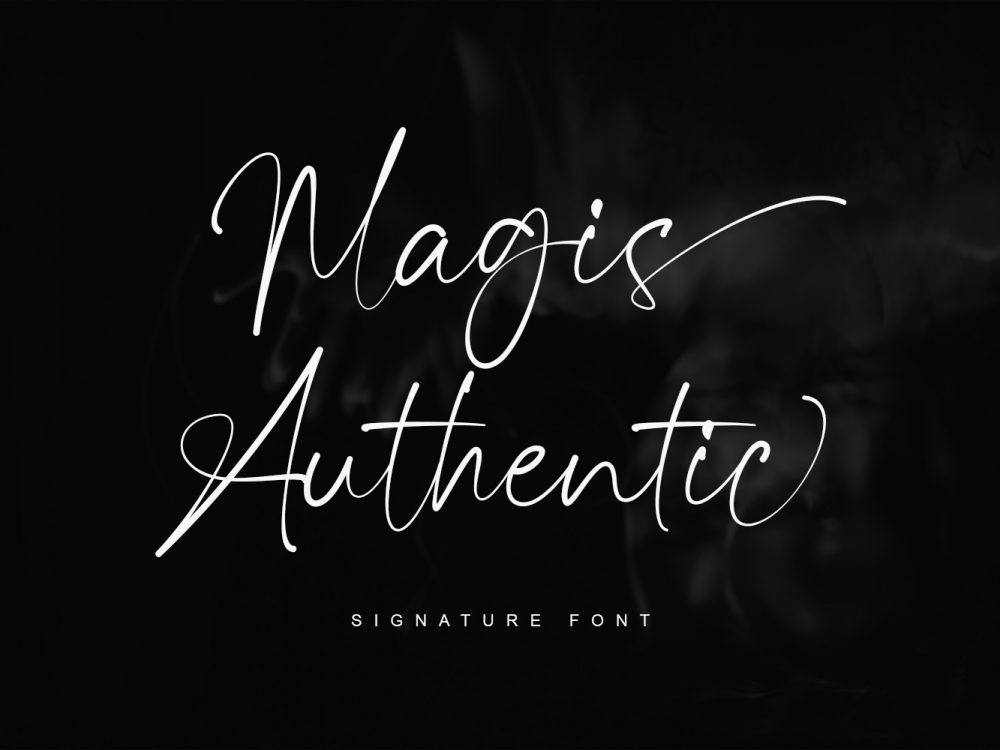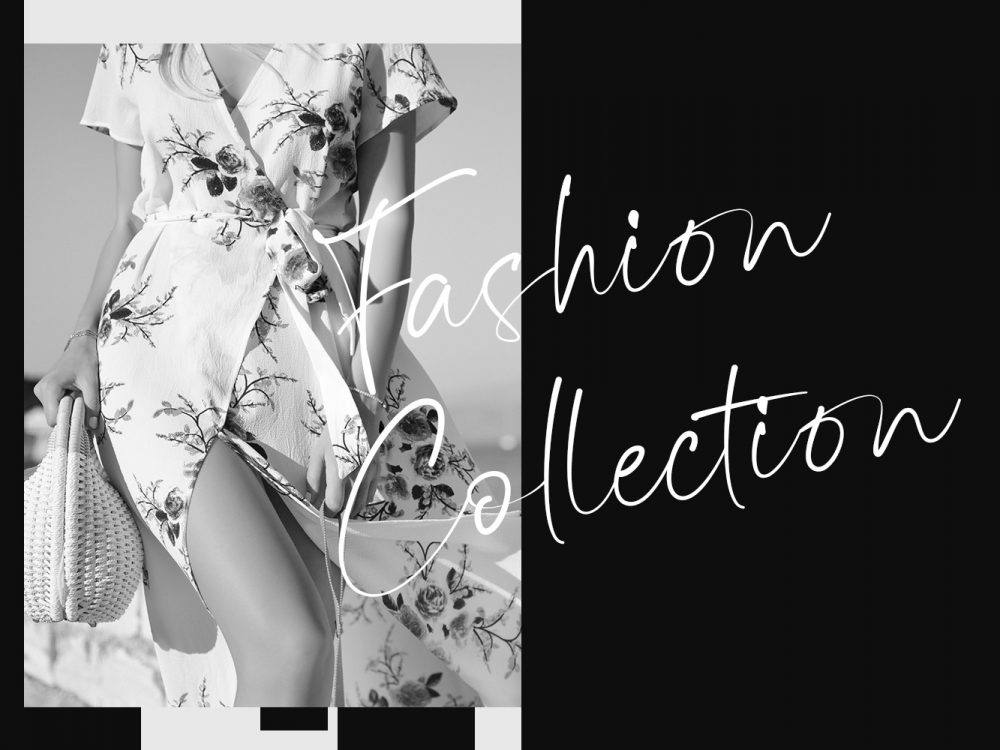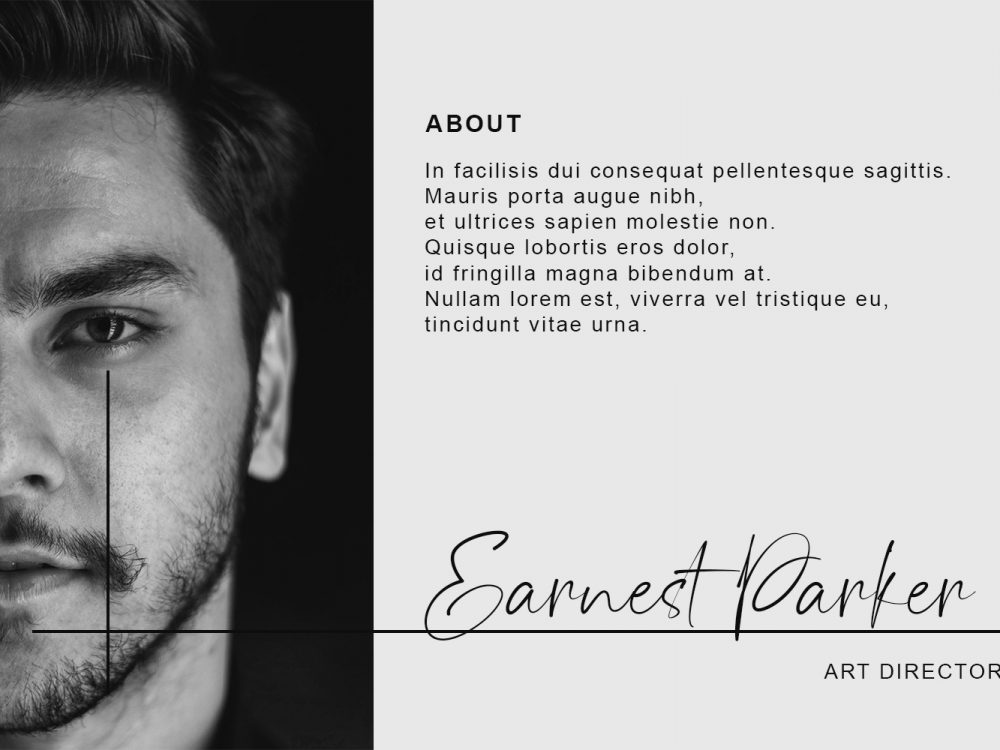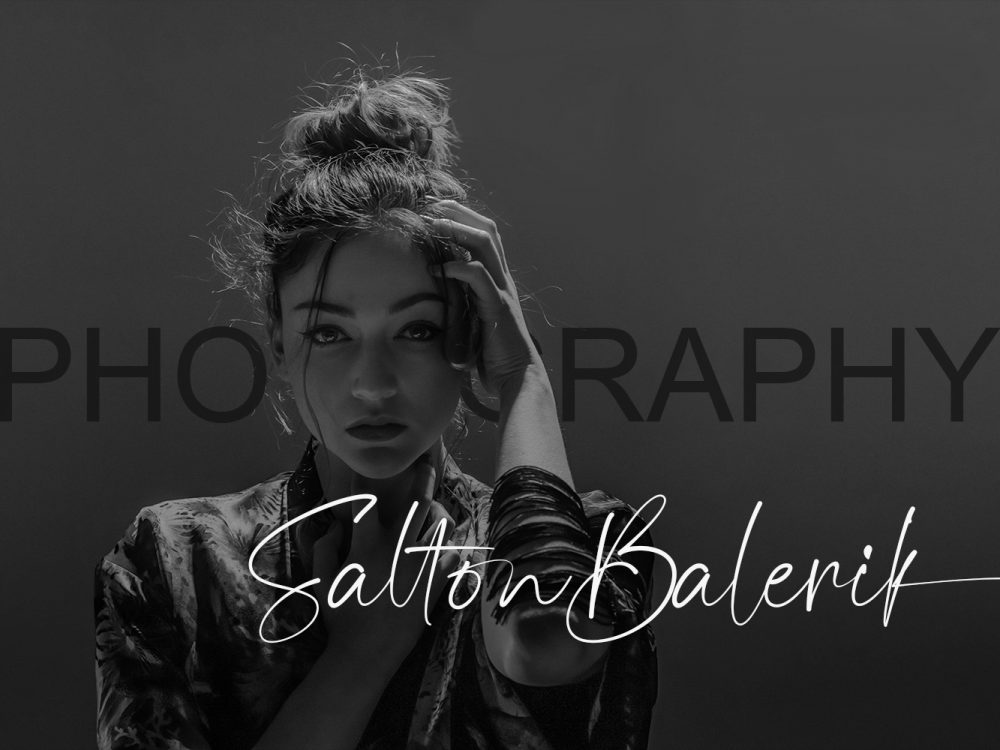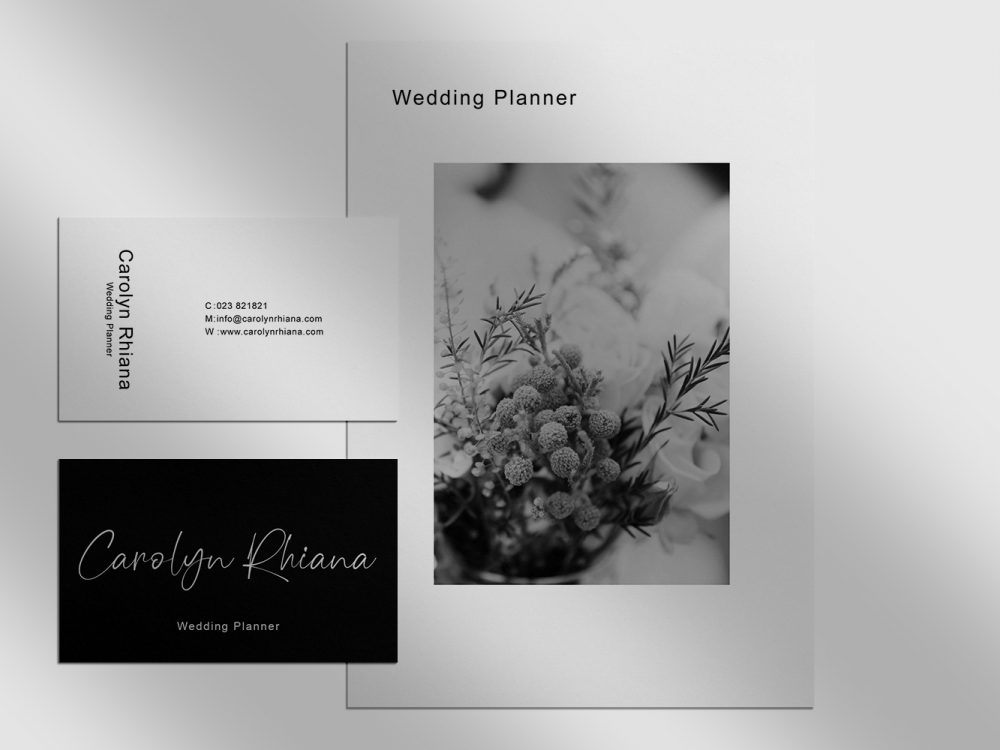
Magis Authentic Free Font
Magis Authentic Free Font is a modern calligraphic font with an elegant style. This font is very suitable for creating various projects that require a script font. You can use this font to create memorable posters, wedding invitations, greeting cards, branding, flyers, t-shirt and pillow prints, and more. If you like it don’t forget to check out the full version.